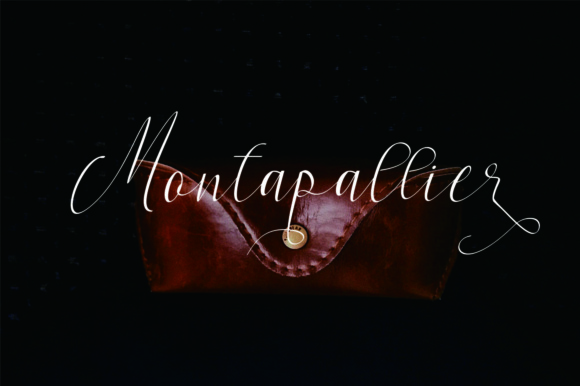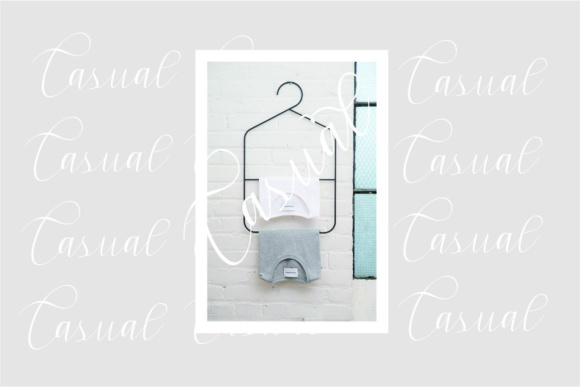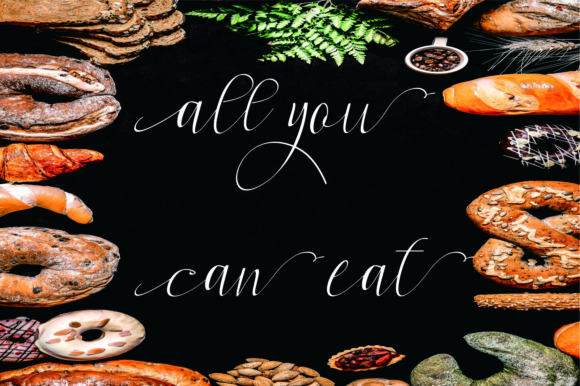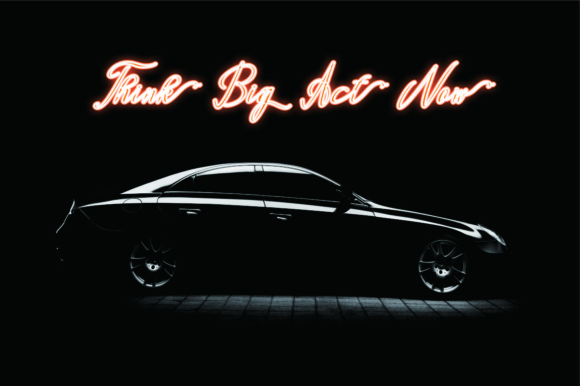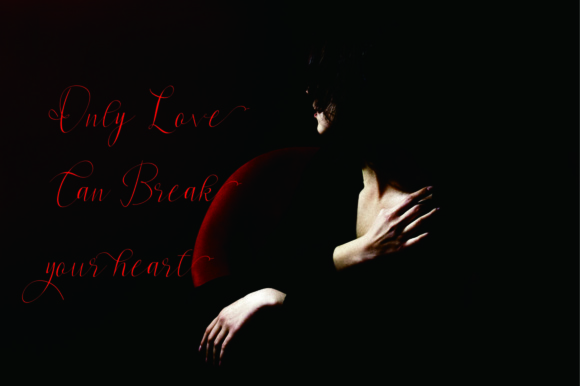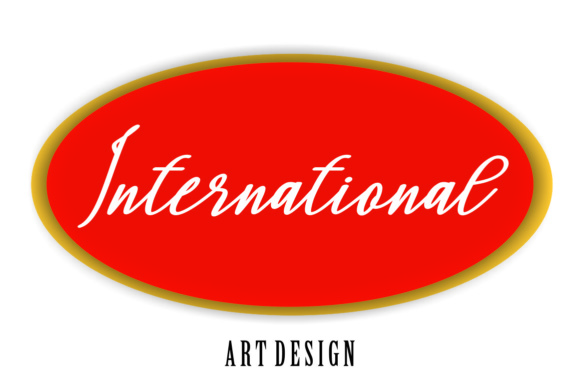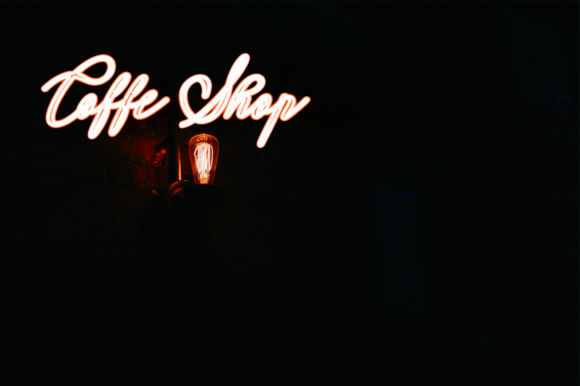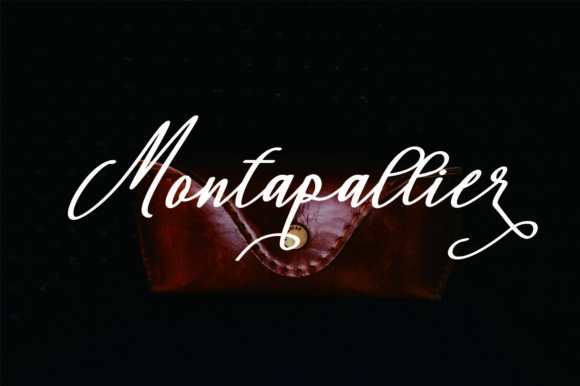
Montapallier Script Font
About Montapallier Script Font
The Montapallier is an unique, elegant font. It comes in a bold, and bold italic style which gives you the opportunity to create multiple unique designs.